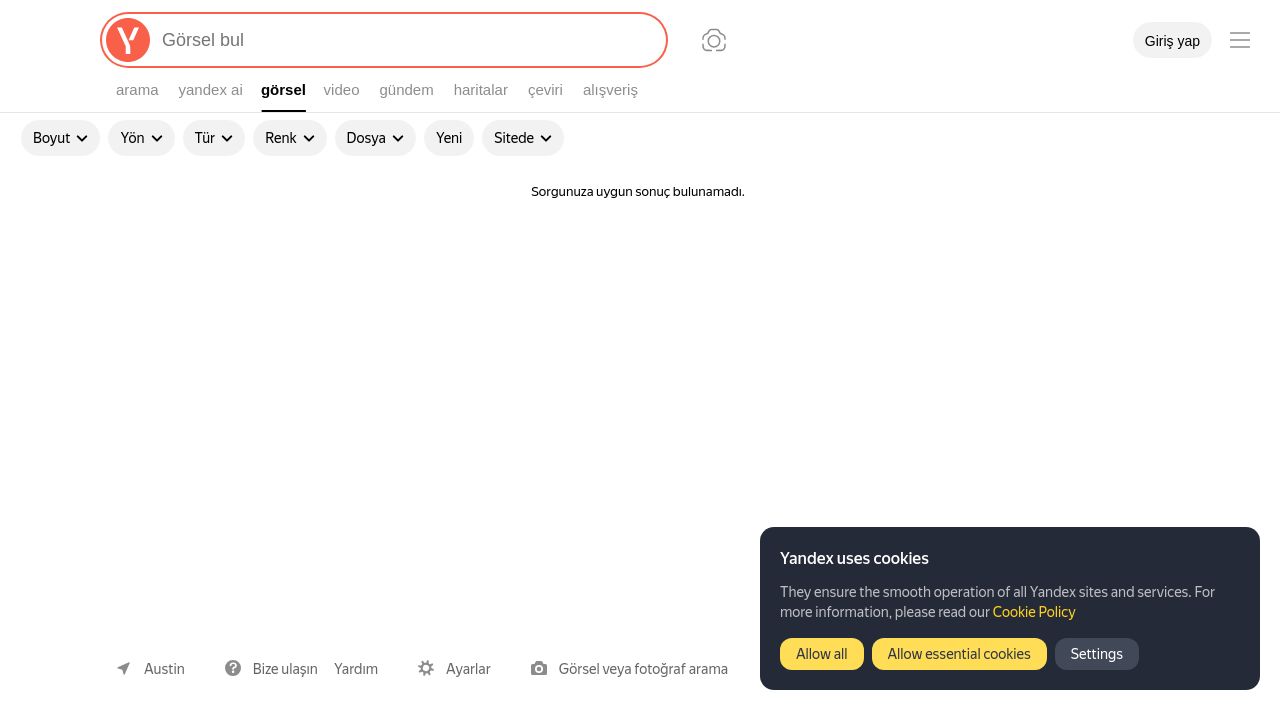
What fonts does Yandex use?
Yandex.com.tr uses YS Text Variable, Text Full and YS Text as its main typefaces. Arial, Helvetica and helvetica-neue are declared as fallbacks. 6 fonts detected, last checked Sep 25, 2026.
Yandex.com.tr, a key player in the search engine industry, utilizes a range of fonts that reflect its digital identity. The primary use of Arial, Helvetica, and helvetica-neue provides a clean and accessible reading experience. Additionally, YS Text Variable, along with other custom fonts like Text Full and YS Text, enhances the site's visual appeal and user engagement, catering specifically to its Turkish audience with clarity and functionality.
What fonts does Yandex.com.tr use?
Yandex.com.tr uses YS Text Variable, Text Full and YS Text as its main typefaces. Arial, Helvetica and helvetica-neue are declared as fallbacks. 6 fonts detected, last checked Sep 25, 2026.
What fonts are used on yandex.com.tr?
Yandex.com.tr primarily uses Arial, Helvetica, helvetica-neue, YS Text Variable, Text Full, and YS Text. These fonts contribute to the site's user-friendly design.
How does YS Text compare to Arial?
YS Text offers a more contemporary design compared to Arial. It is tailored for digital use, enhancing readability while maintaining a unique character.
What styles and weights are available for the fonts on yandex.com.tr?
The primary fonts on yandex.com.tr include weights of 400 for Arial, Helvetica, helvetica-neue, and 400 and 700 for YS Text Variable, ensuring versatility in text presentation.
Why does yandex.com.tr use custom fonts?
Custom fonts like YS Text and Text Full allow yandex.com.tr to create a distinctive brand identity while maintaining readability and user engagement across various devices.